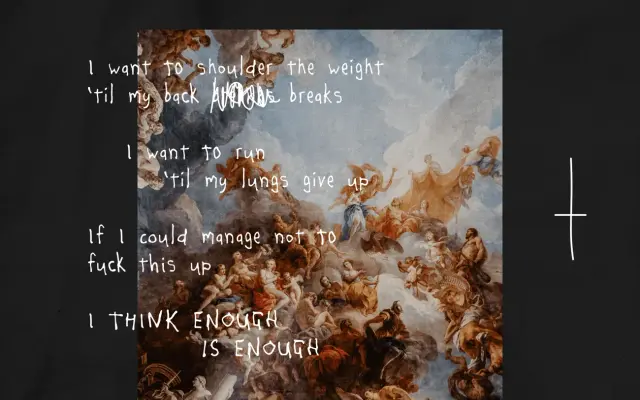
Sad Poem
A skinny, irregular handwritten pen script with over 360 glyphs, custom ligatures and an extended symbol set for expressive, informal use.
Designed to feel spontaneous and raw, it mimics the uneven quality of genuine pen handwriting with deliberately wonky, wiggly letterforms. The character set covers both upper and lowercase, multilingual characters and custom ligatures, giving it more typographic range than most casual scripts. Best suited to personal projects, social content or packaging where an emotional, handmade quality is the point.
A casual handwritten pen script with irregular, organic letterforms designed to mimic authentic handwriting. Classified as script due to its handwritten character and flowing, informal construction.